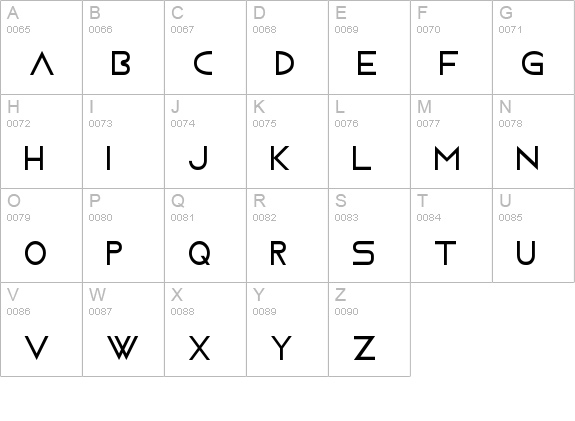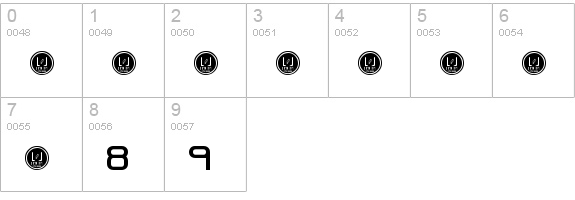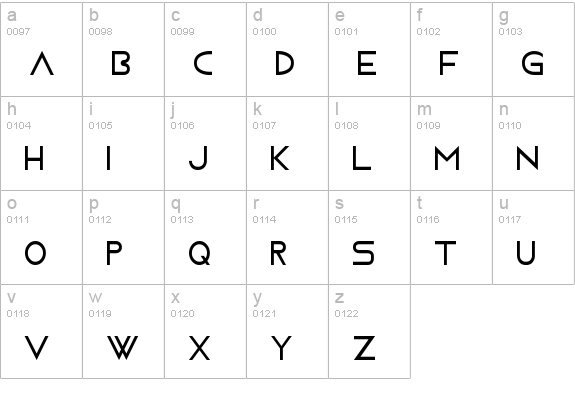
Moving Forward - LJ-Design Studios Smooth font is a modern and sleek typeface that effortlessly combines elegance with readability. This font is perfect for a wide range of design projects, from branding and advertising to web design and print materials. With its smooth curves and clean lines, Moving Forward exudes a sense of sophistication and professionalism. What sets Moving Forward - LJ-Design Studios Smooth font apart is that it is freely available for download at FontsMarket.com. This means that designers and creatives can easily access this exceptional font without any cost. Whether you are a professional designer or a DIY enthusiast, this font offers endless possibilities for your creative endeavors. With its generous selection of characters and glyphs, Moving Forward - LJ-Design Studios Smooth font allows you to create visually striking designs that leave a lasting impression. From its perfectly balanced letterforms to its consistent spacing, every detail has been meticulously crafted to ensure a seamless and harmonious typography experience. Whether you are designing a logo, crafting a website, or creating eye-catching headlines, Moving Forward - LJ-Design Studios Smooth font is a versatile choice that can elevate your designs to new heights. Its timeless appeal and versatility make it suitable for a wide range of projects, ensuring that your message is conveyed with utmost clarity and style. Download Moving Forward - LJ-Design Studios Smooth font for free at FontsMarket.com and unlock a world of design possibilities. With its modern aesthetic and effortless legibility, this font is sure to become a valuable addition to your font library. So, take a step forward and embrace the elegance and professionalism of Moving Forward - LJ-Design Studios Smooth font in your next design project.